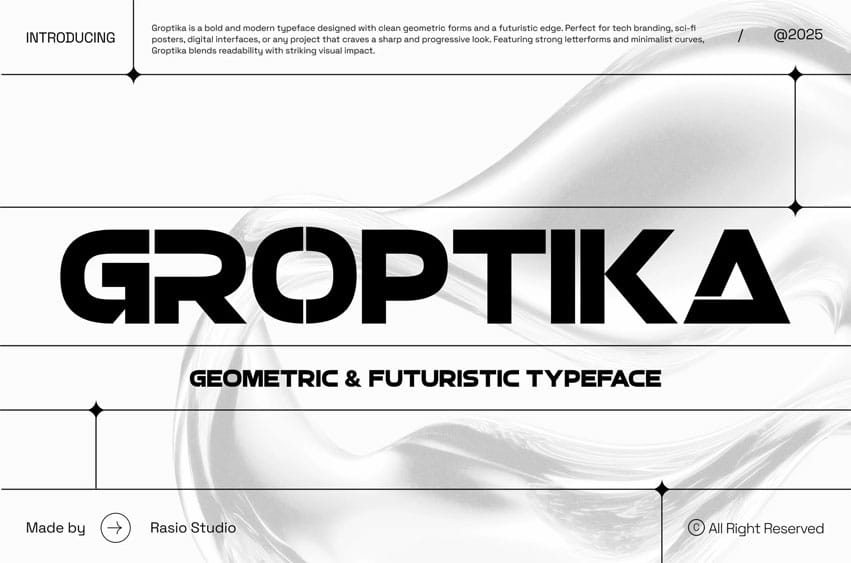
Groptika Font is a bold geometric typeface inspired by futuristic design, cutting-edge technology, and cyber aesthetics. Built with sleek precision and high readability, it’s designed to amplify clarity and presence in modern branding and UI/UX environments. The typeface features sharp terminals, monospaced elements, and strong modularity—making it perfect for tech products, innovation campaigns, esports branding, and digital product packaging. Its synergy of form, function, and futuristic energy makes GROPTIKA the ideal font for forward-thinking creatives and brands that speak the language of tomorrow.